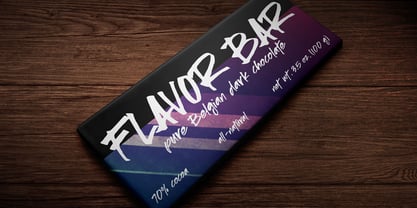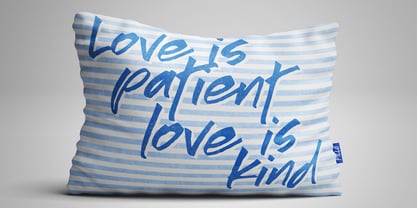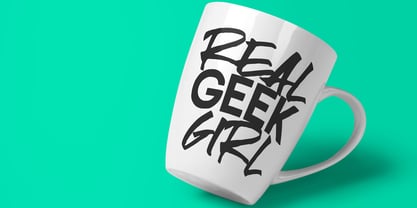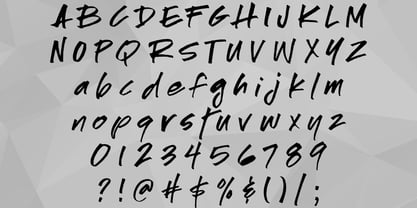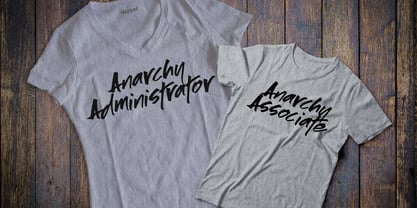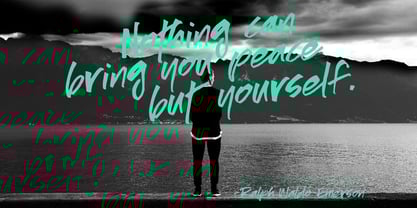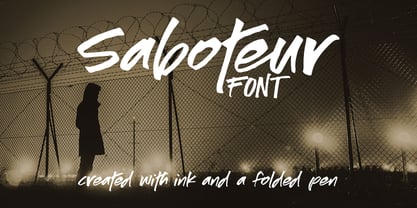
Saboteur
by Missy Meyer
Look out, it's Saboteur! I went old-school with this font, creating the letters with ink and paper. I used a folded pen, which is one of my favorite lettering tools.
Despite being a true ink-brush font, Saboteur is still relatively smooth and craft-friendly! The letters are all solid -- no internal areas to weed out. And the edges have been smoothed and refined just enough to make the letters easy to cut out, while still retaining some of their original rough character. (I've done a test cut on a Silhouette Cameo at one inch tall, and it both cut and weeded beautifully.)
As with all of my fonts, this one comes with plenty of punctuation and over 200 accented characters for language support.
Saboteur
About Missy Meyer
Missy Meyer has decades of lettering and illustration under her belt; when looking to change careers in her 40s, graphic design seemed like the perfect way to go. She soon found her way into font design, and has been in love ever since. She specializes in quirky, casual, fun fonts that don't take themselves too seriously, but are still clean and easy to work with. (What did she do before design? It's been an amazing variety of jobs, including: bank teller, pizza chef, accountant, camp counselor, casino dealer, singing improv comedian, and game show host at Walt Disney World.)